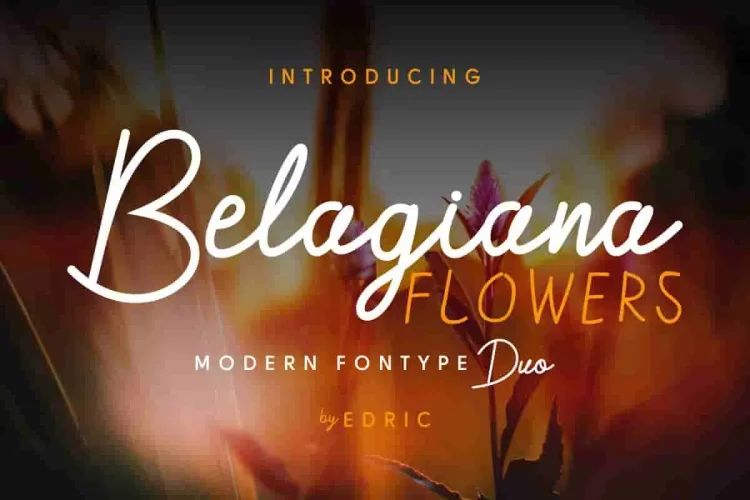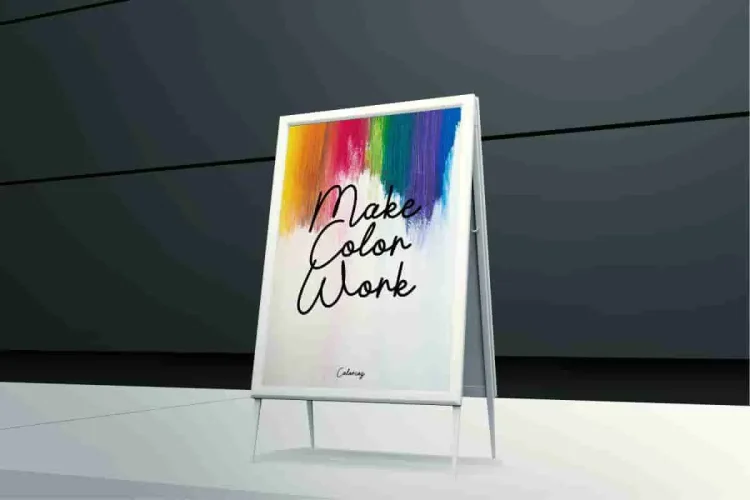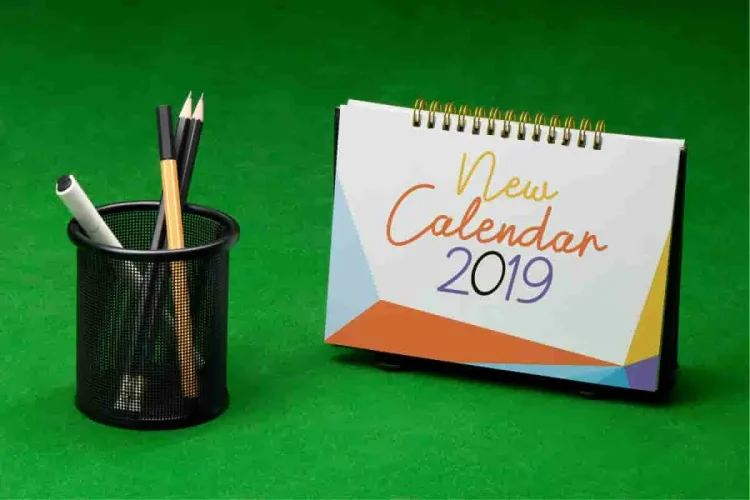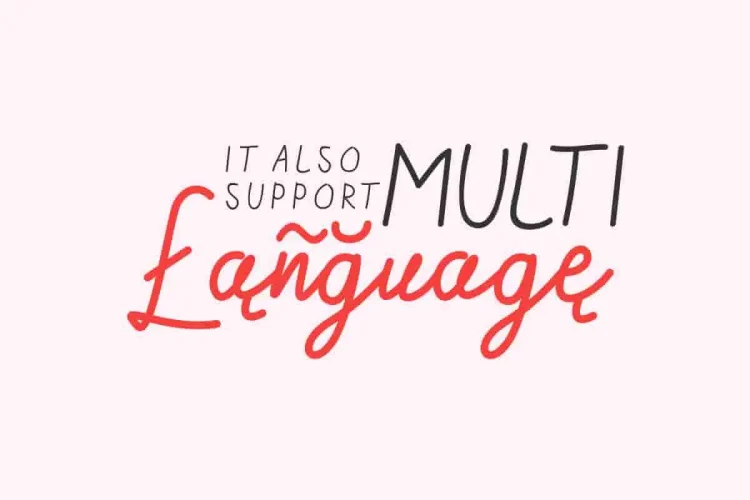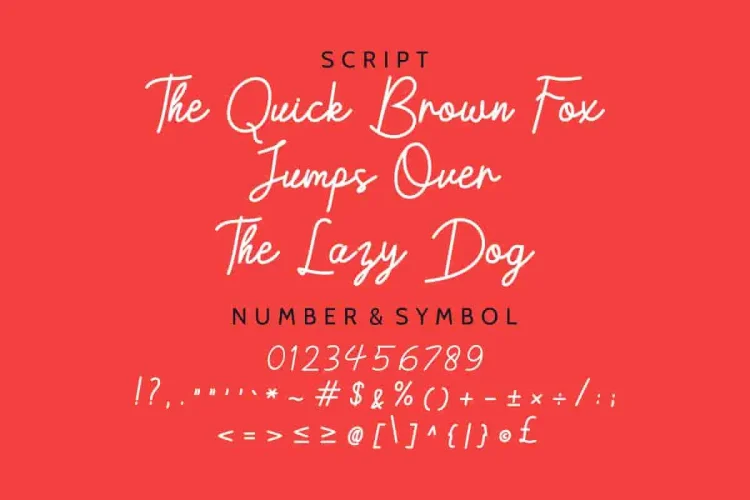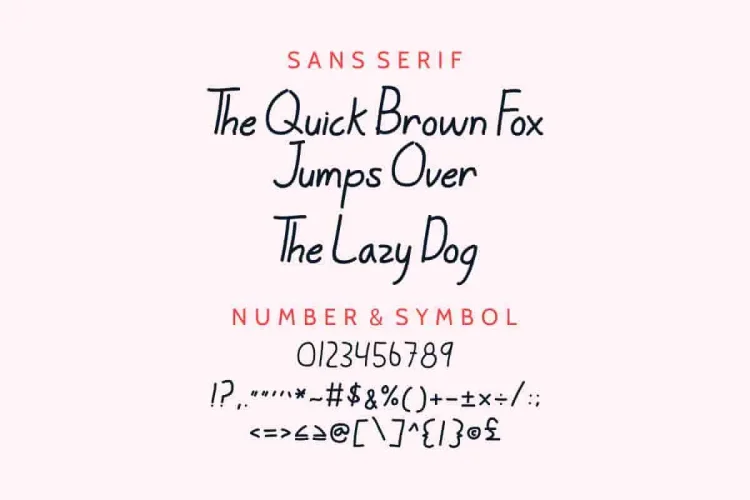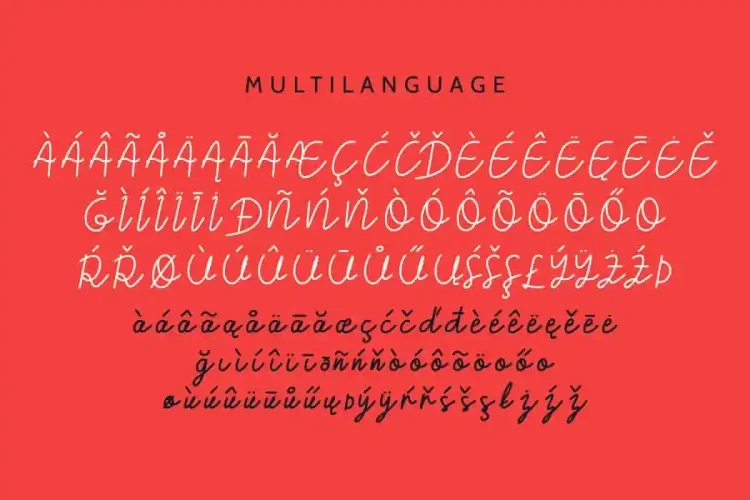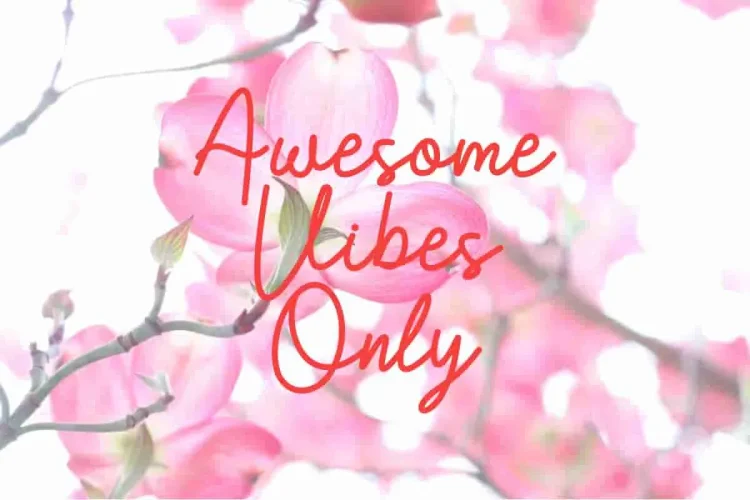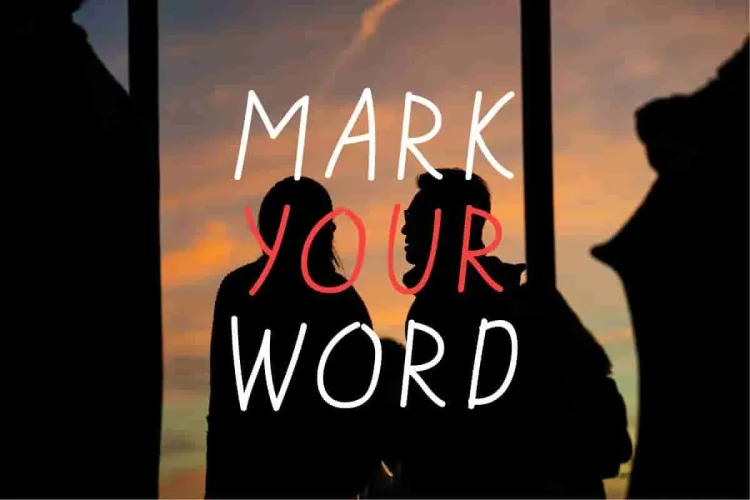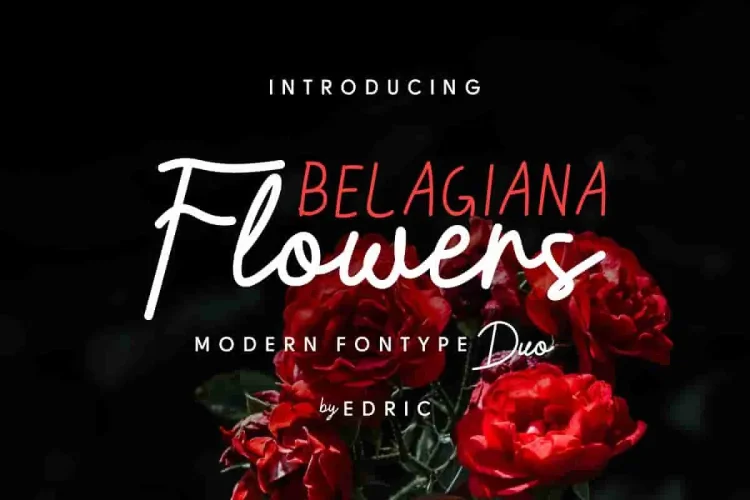
Belagiana Flowers Script Font
Belagiana Flowers  !
Belagiana Flowers is a new  font duo consist of script and sans look display. It has beautiful characters set, unique ligatures and modern sans serif by edric studio.